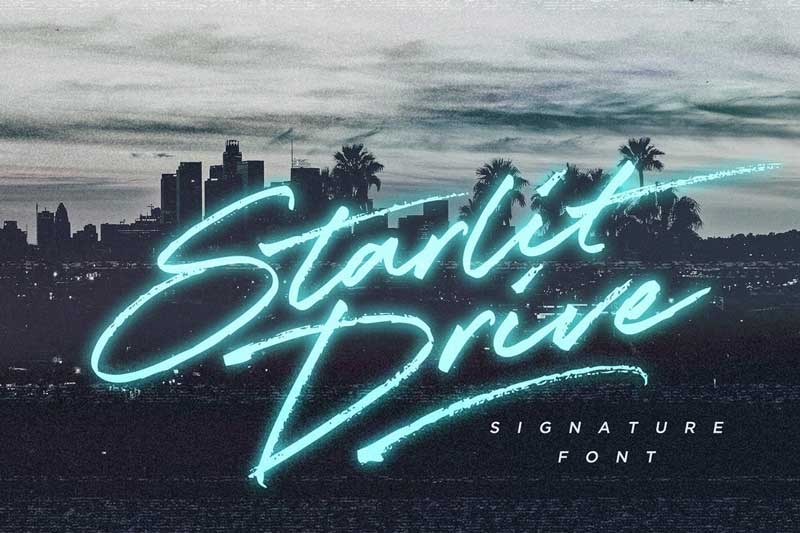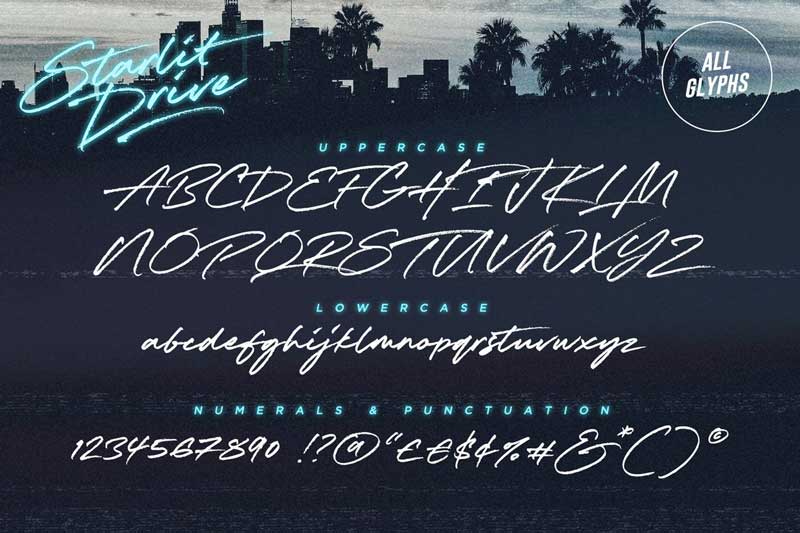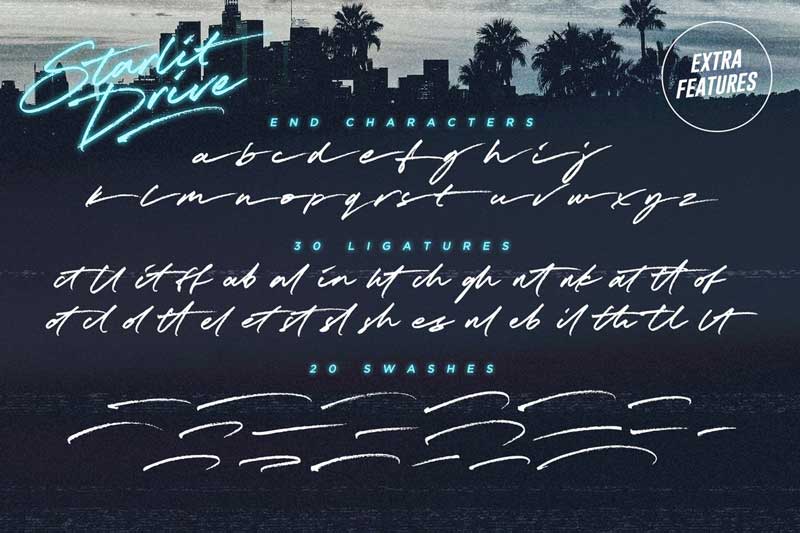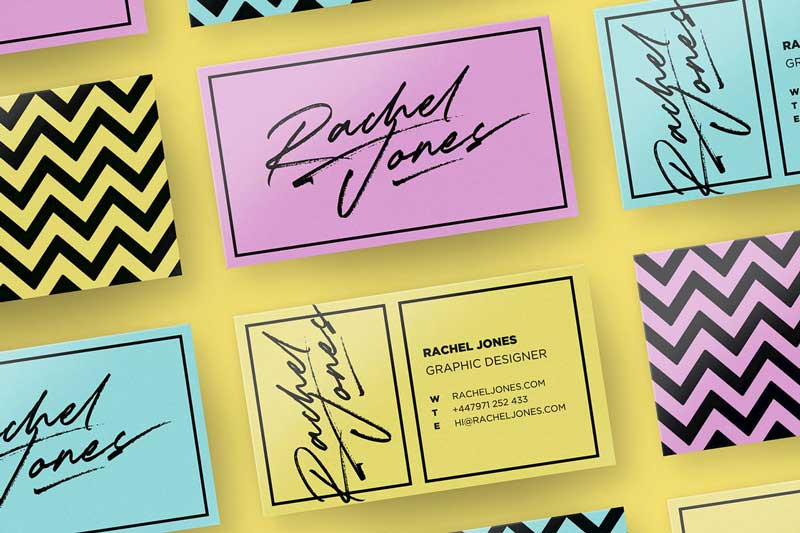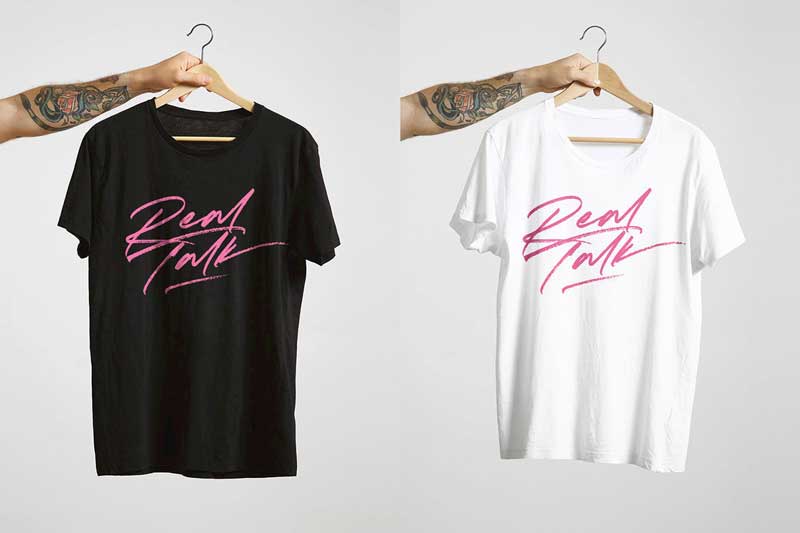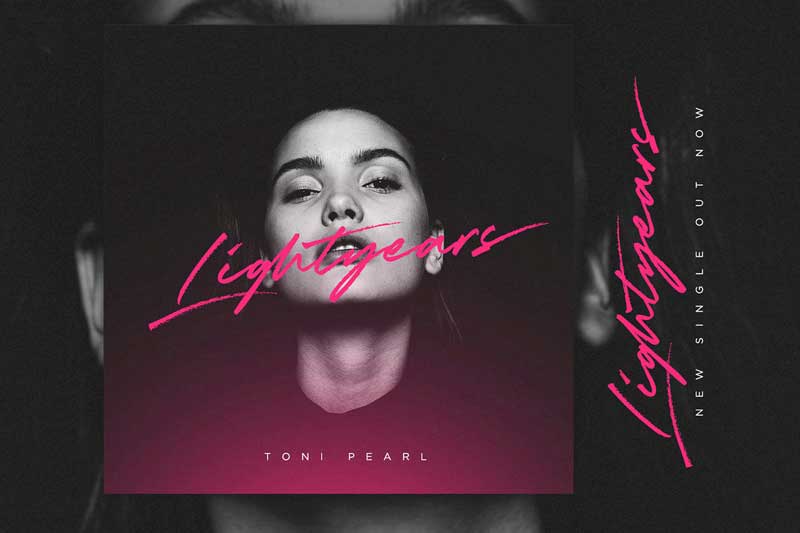
Starlit Drive Font Family
Get your aviators on and hit the road with Starlit Drive – a fast paced, stylish signature font with a retro edge. With swift strokes and authentic dry textures, it’s an irresistibly charismatic & confident font choice for a range of design projects.Includes multilingual support for English, French, Italian, Spanish, Portuguese, German, Swedish, Norwegian, Danish, Dutch, Finnish, Indonesian, Malay.